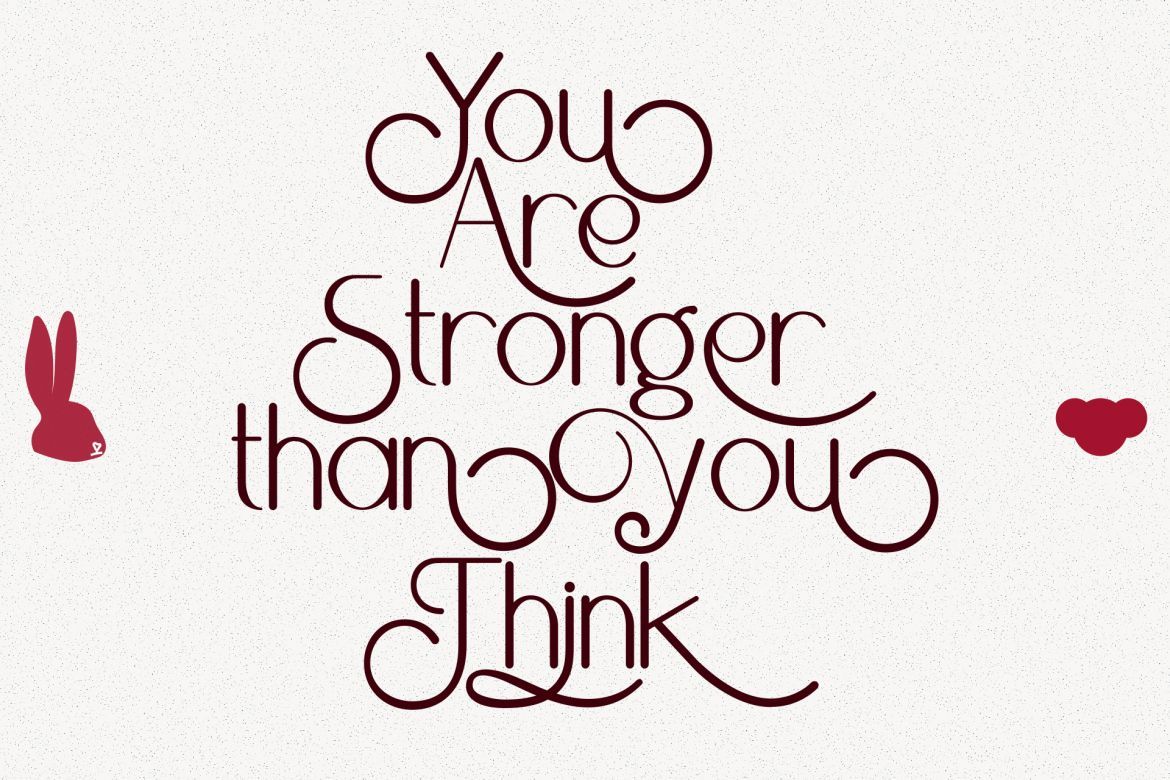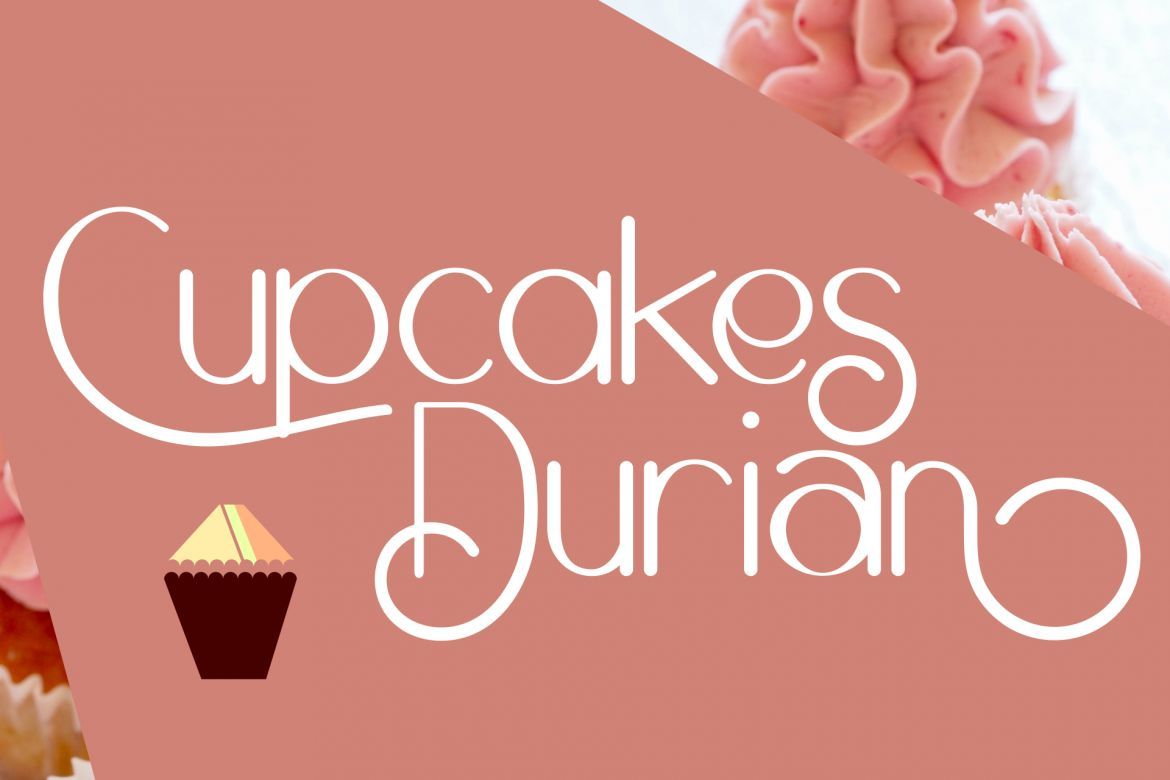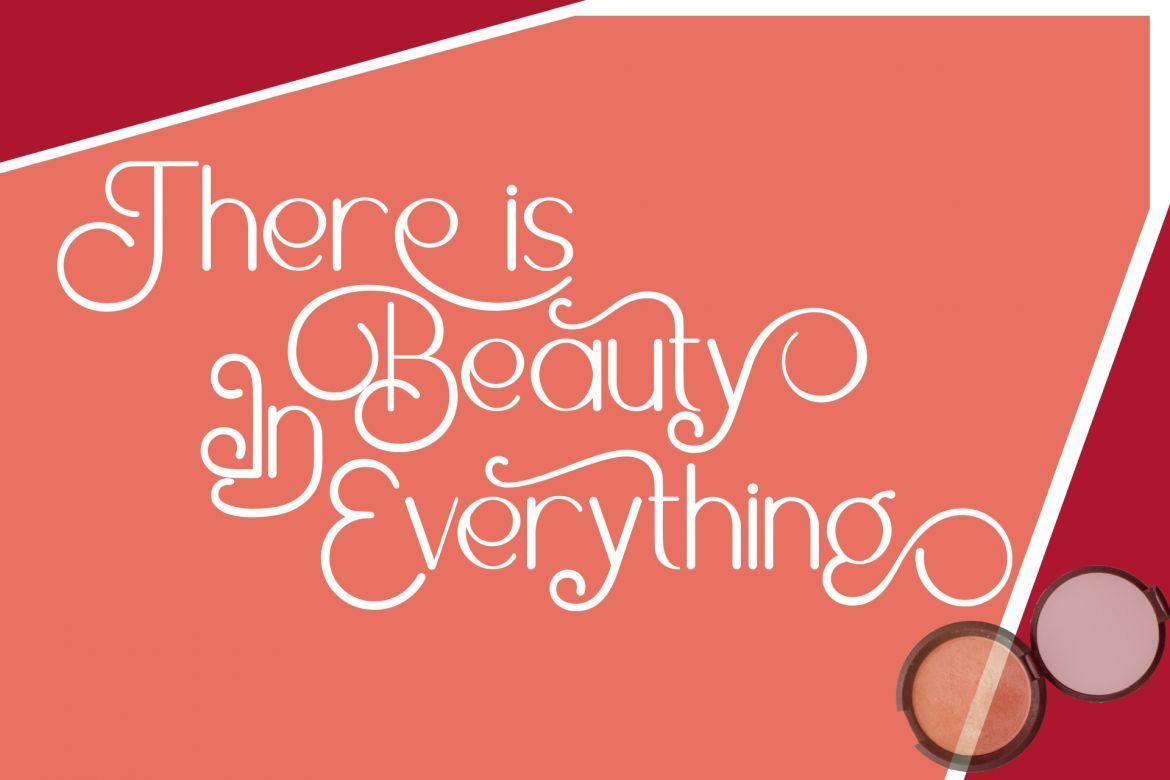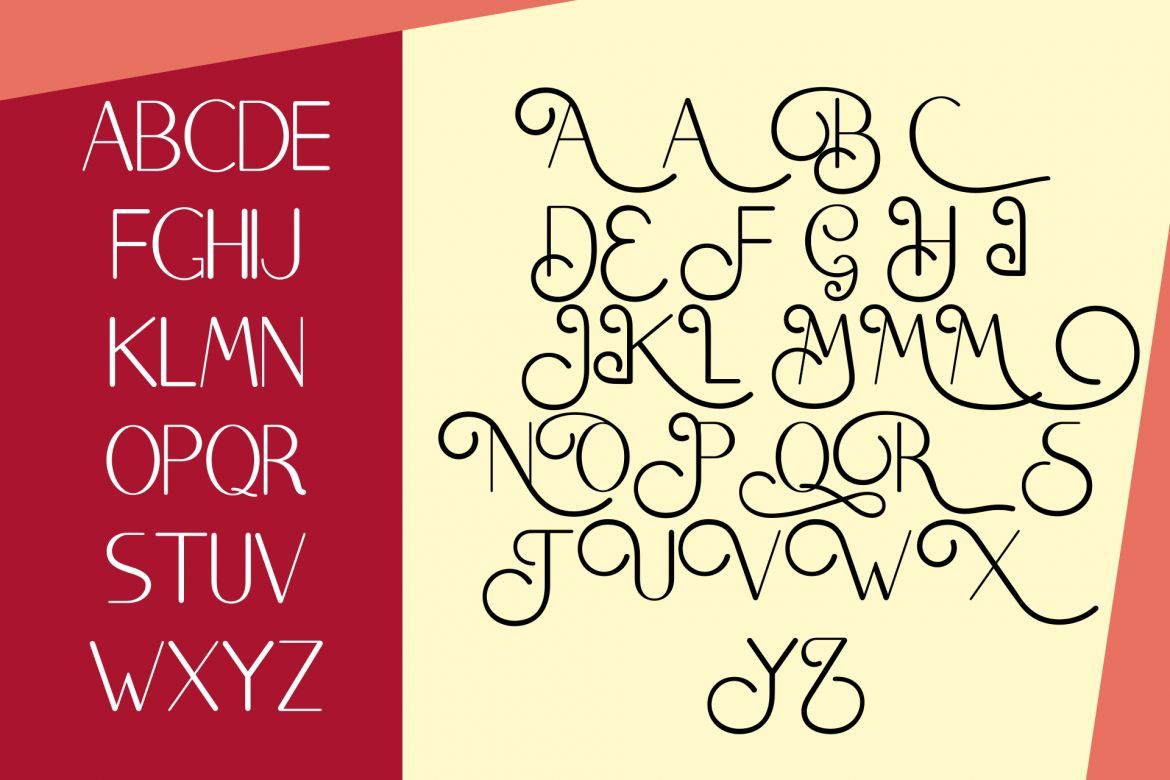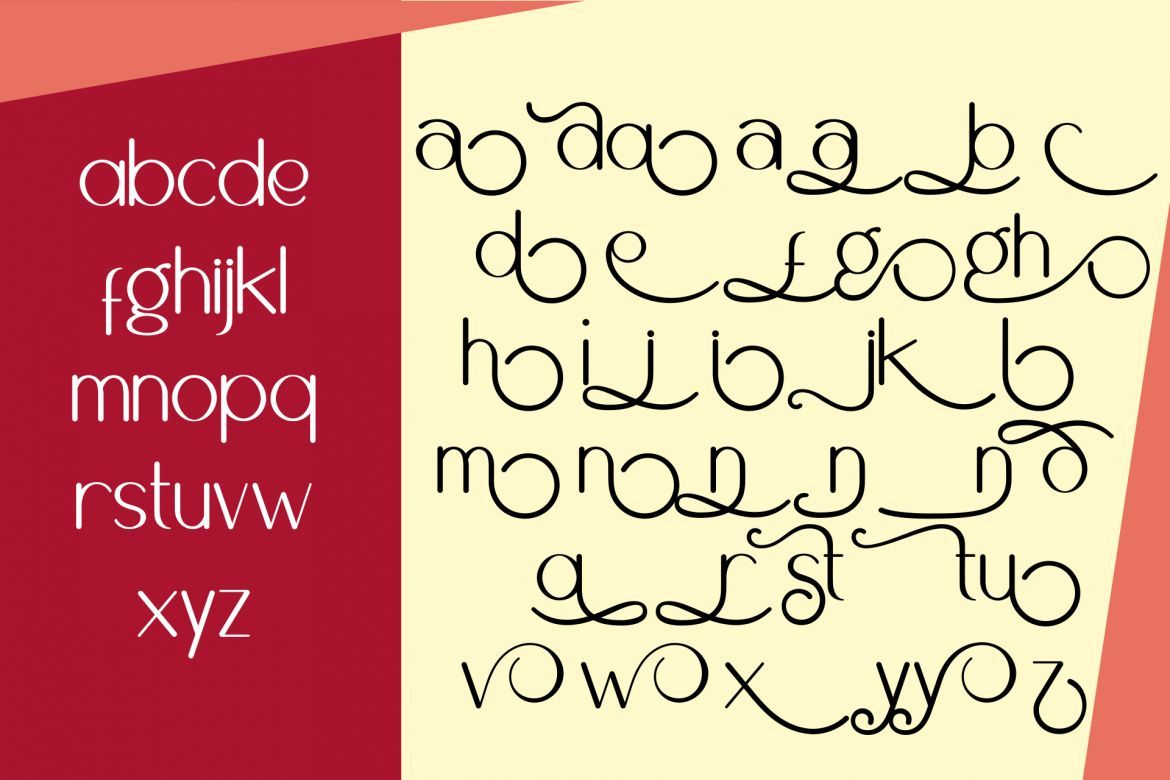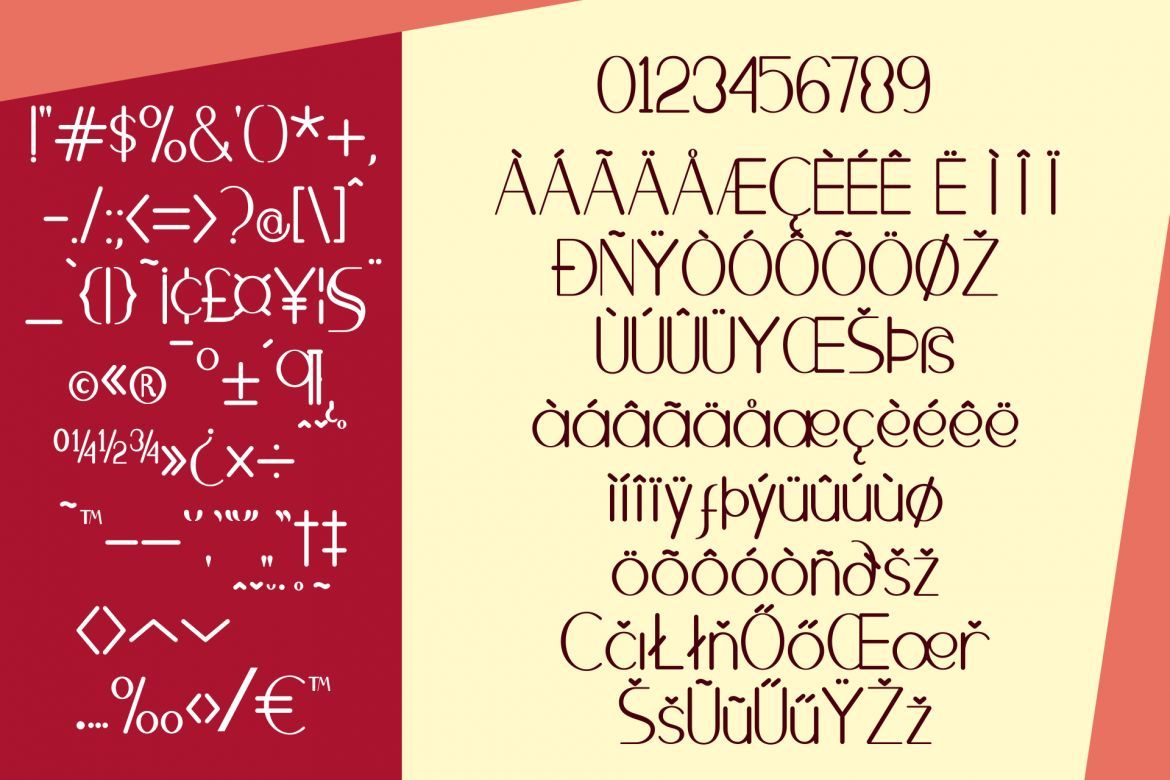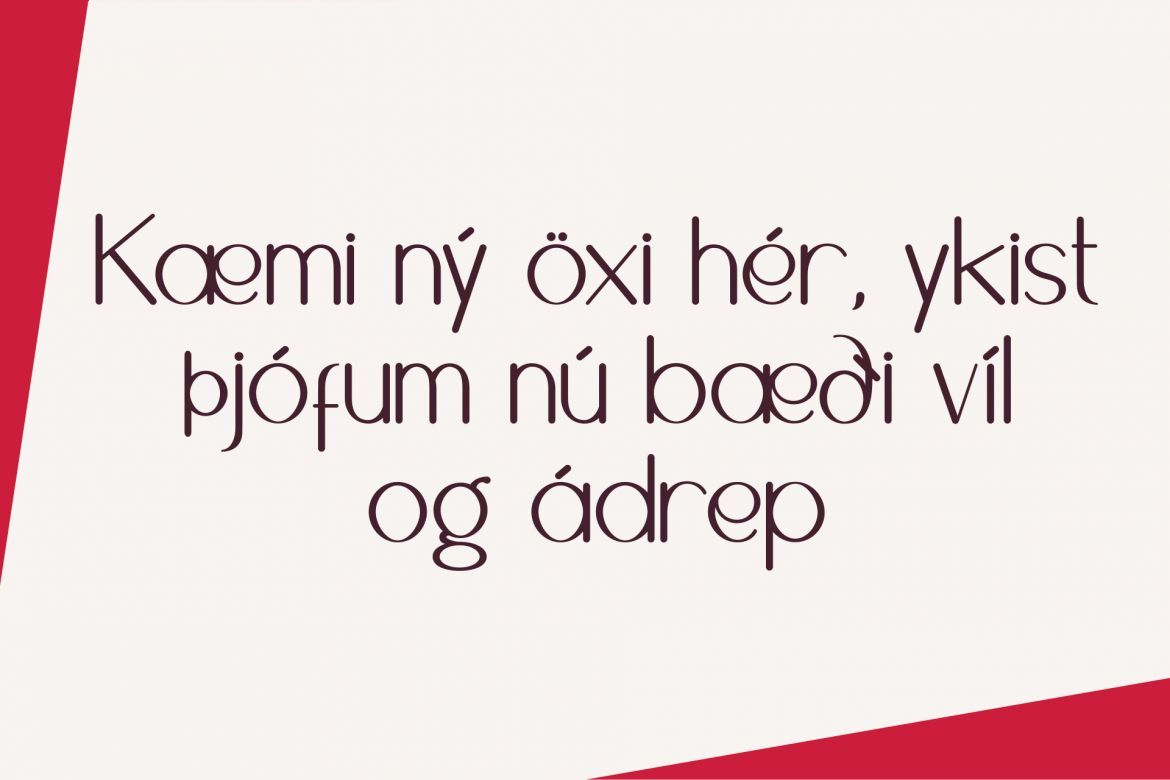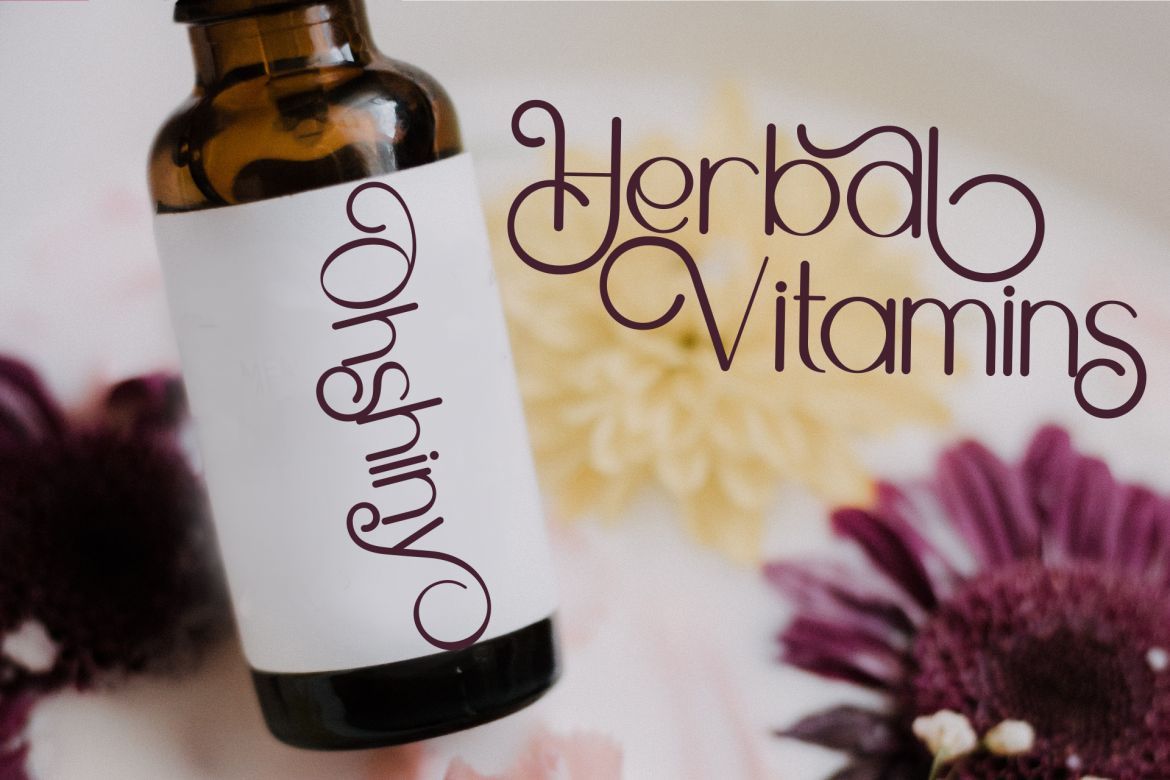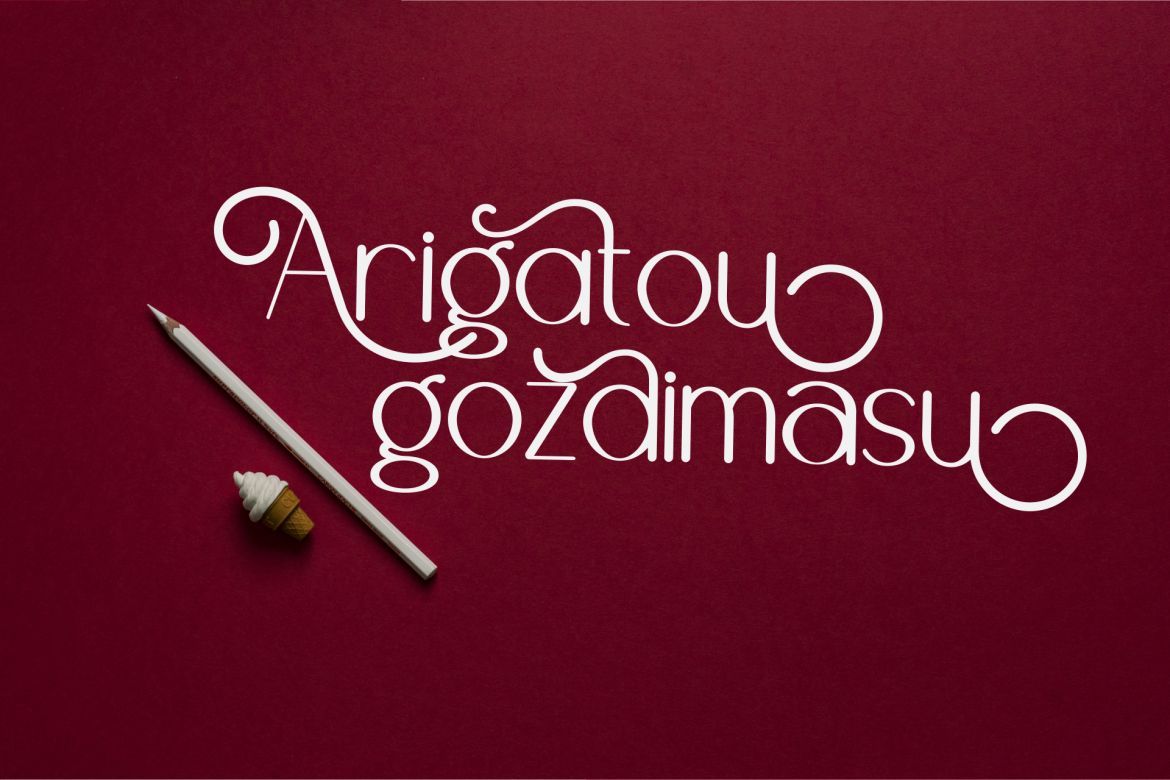
Brighty Sans Script Typeface
Brighty sans script is beautiful sans with script alternate. the file includes OTF, TTF, plus bonus editable SVG Papercut. it is suitable for heading and outline. you will love it. Support multilingual. it is consist of Basic Multilingual Plane, Basic Latin, Latin-1 Supplement, Latin Extended-A & B, general punctuation, super and subscripts, currency symbols, letterlike symbols and Alternate characters on PUA. Picture are not include in part of product sale.
• complete multiligual glyph
• so many alternate character both for uppercase or lowercase